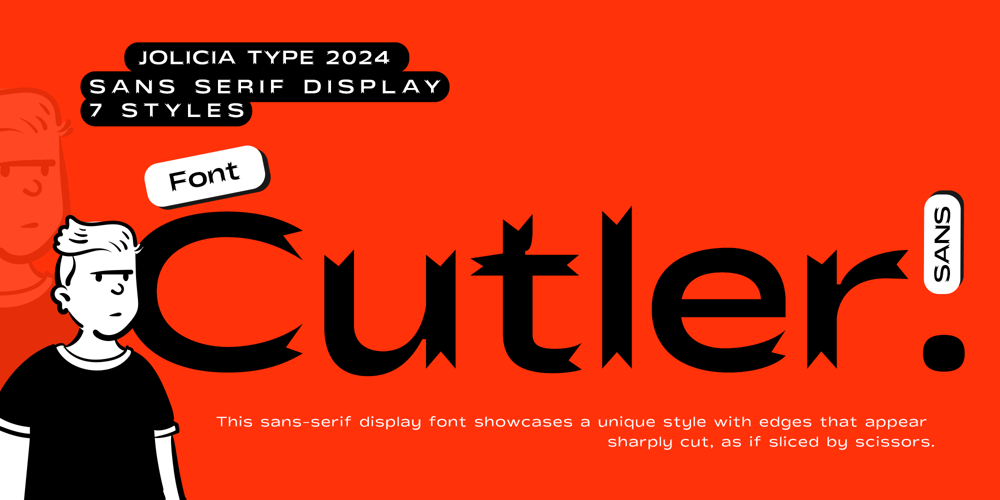
Cutlers Sans
Cutlers Sans font
Cutlers Sans Font Family was designed by Laire Banyu, Dyaharum Pungki Revitasari and published by Jolicia Type. Cutlers Sans contains 7 styles and family package options. Cutler Sans is a modern display sans-serif font with unique, bold characteristics that set it apart from conventional sans-serifs. Inspired by the precision of cut paper, each stem in Cutler Sans has a sharply angled end, mimicking the look of scissors slicing through paper. This distinct detail adds a dynamic, crafted feel to the letters, creating a clean yet full-of-character aesthetic.Available in 7 different weights, from the light and elegant Hairline to the strong, eye-catching Bold, Cutler Sans is designed for versatile use across various design needs. It’s an ideal choice for applications that call for a modern, daring aesthetic—whether for logos, magazine headlines, posters, or product branding. The range of weights allows you to express the exact style needed for each project, from minimalist and refined to visually impactful. Carefully developed for optimal clarity and legibility, Cutler Sans performs exceptionally well both on-screen and in print. Its unique combination of sharply angled ends and balanced sans-serif proportions make this font highly versatile yet consistently contemporary. With Cutler Sans, you’ll create designs that stand out and leave a lasting impression.